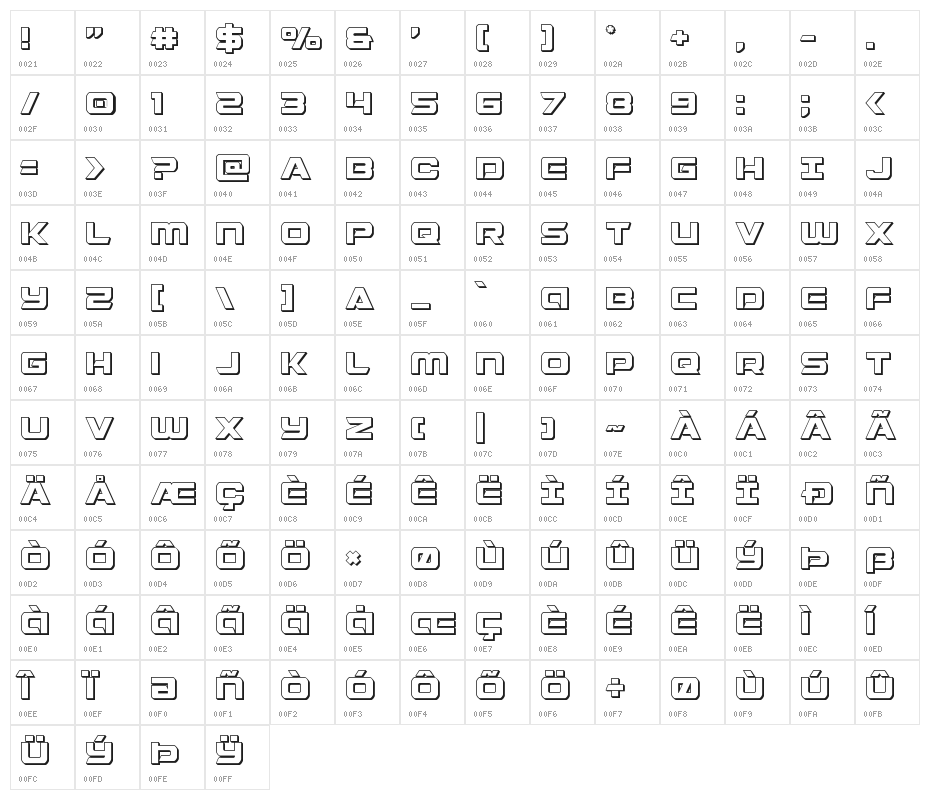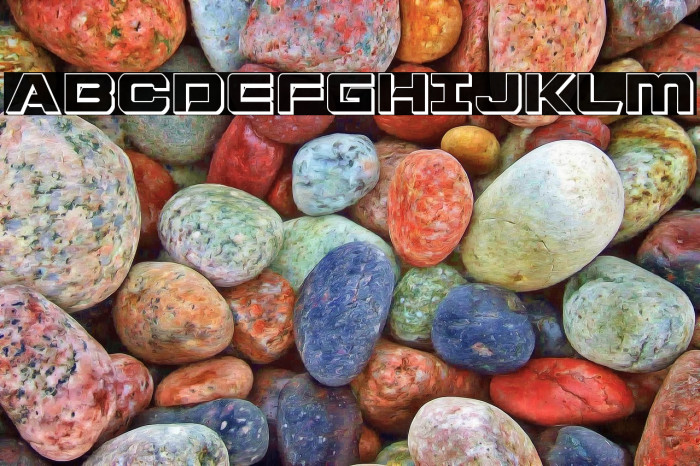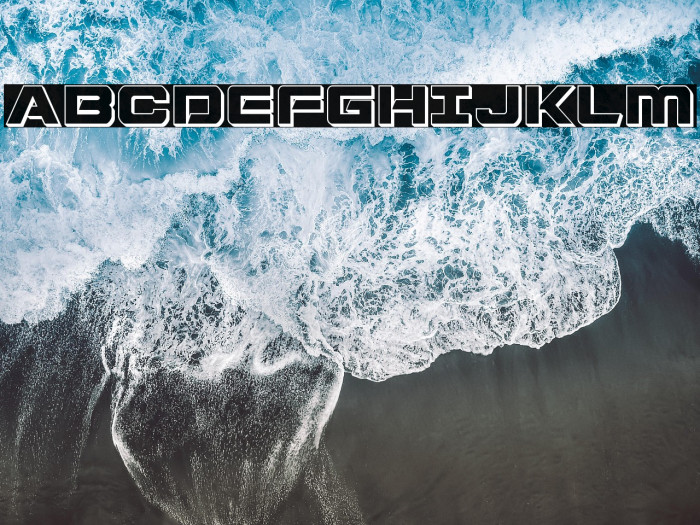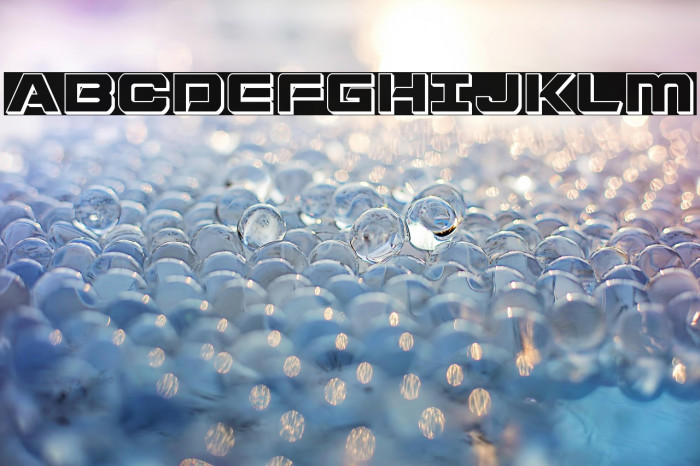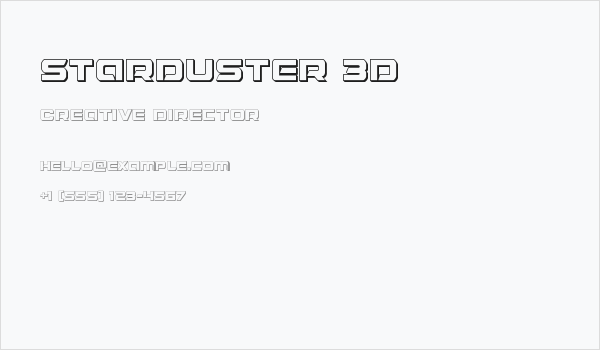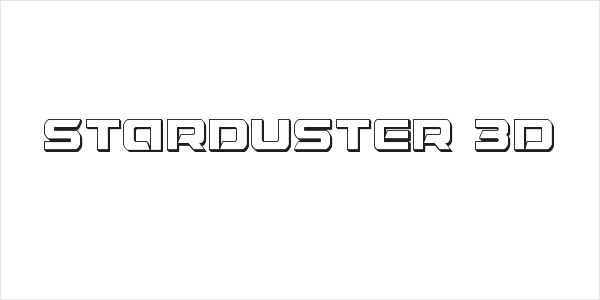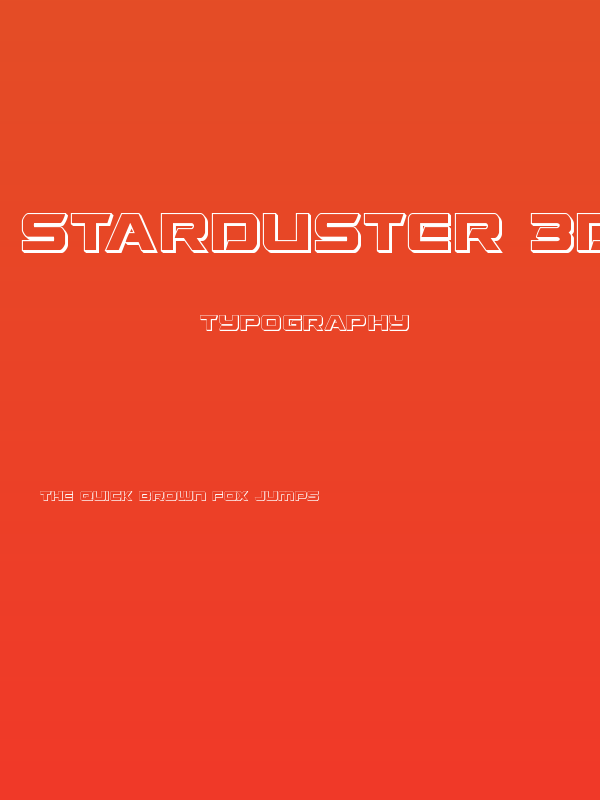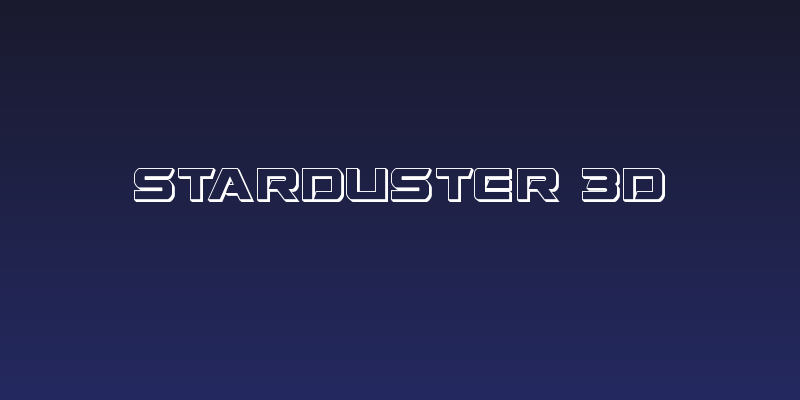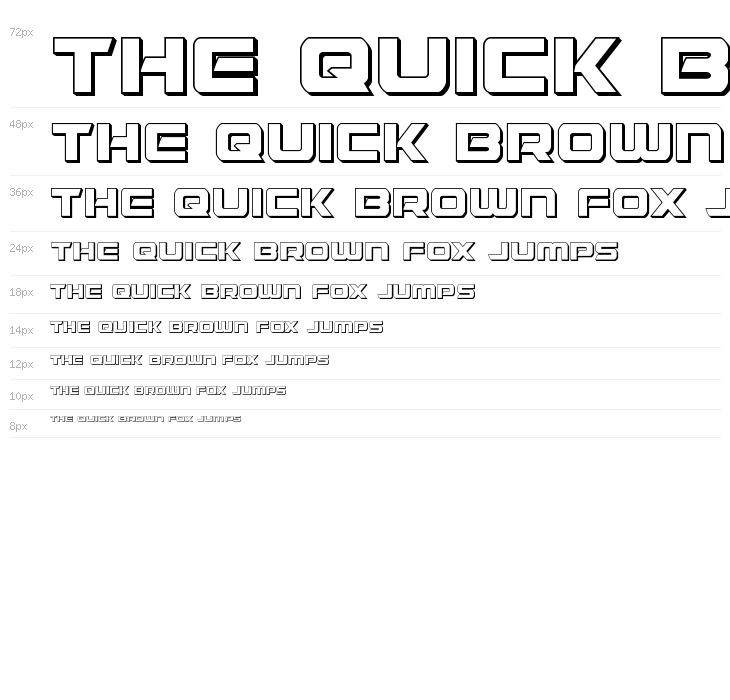
Starduster 3D Font
Starduster 3D Description
This font features a bold, three-dimensional appearance with a strong geometric structure. The uppercase and lowercase letters are designed with a consistent width, creating a uniform look across the alphabet. The characters have a distinct outline that gives them a shadowed effect, enhancing the 3D illusion. The numbers and special characters maintain the same stylistic approach, ensuring cohesion throughout. The font's style is modern and futuristic, making it ideal for projects that require a bold and impactful visual statement.
| Overall Style | Modern, Futuristic |
| Proposed Projects | Ideal for video game titles, sci-fi movie posters, technology branding, and futuristic event invitations. |